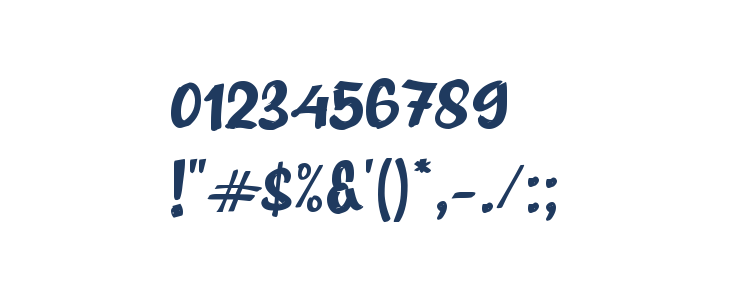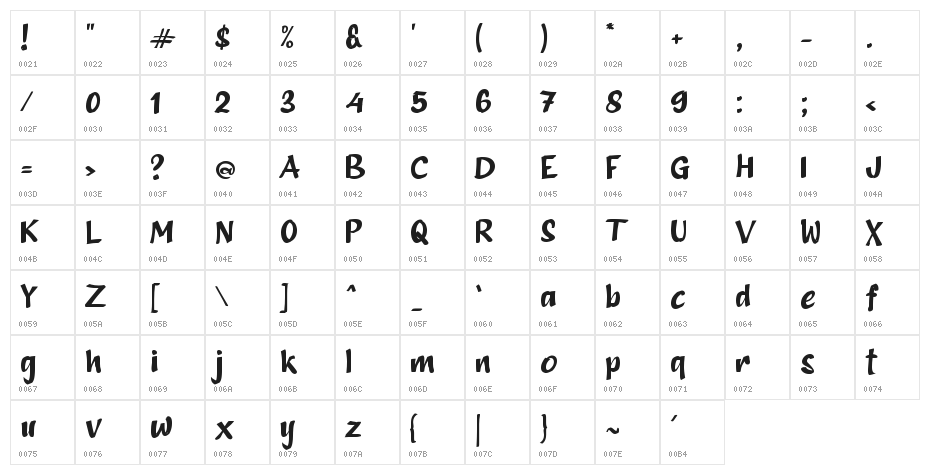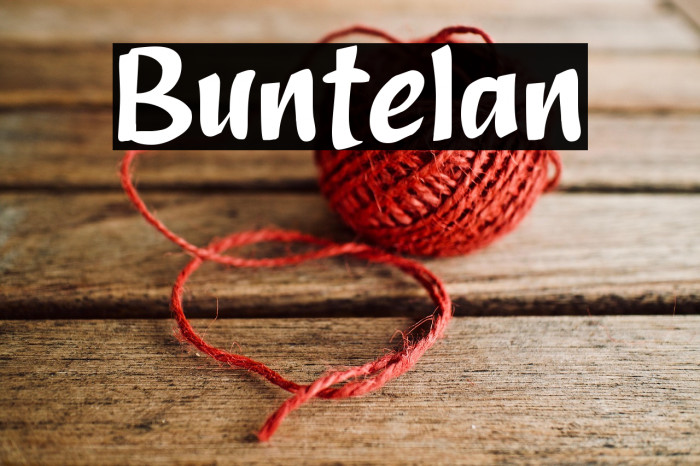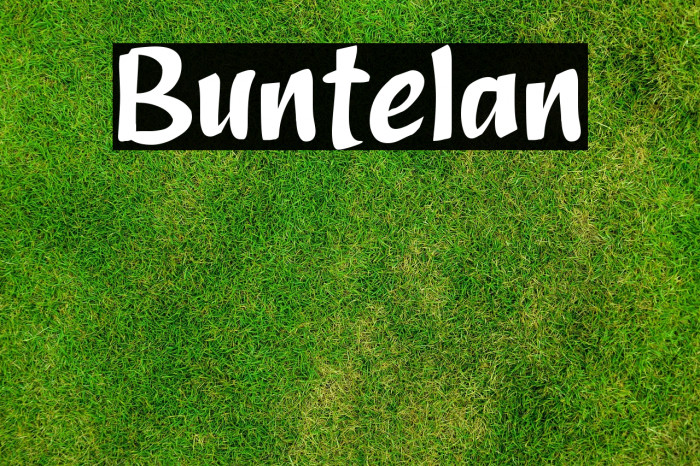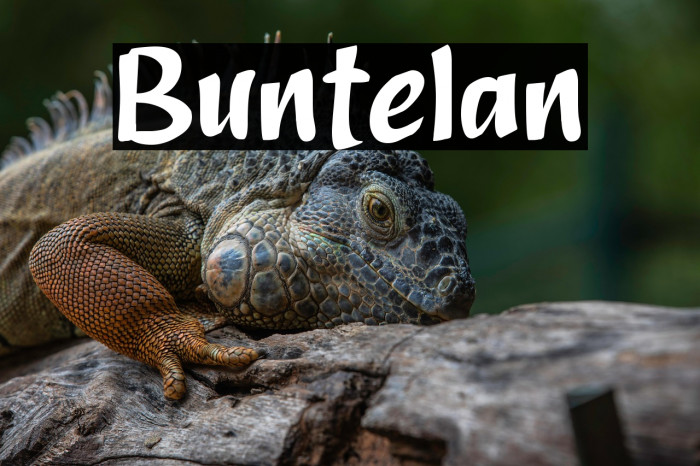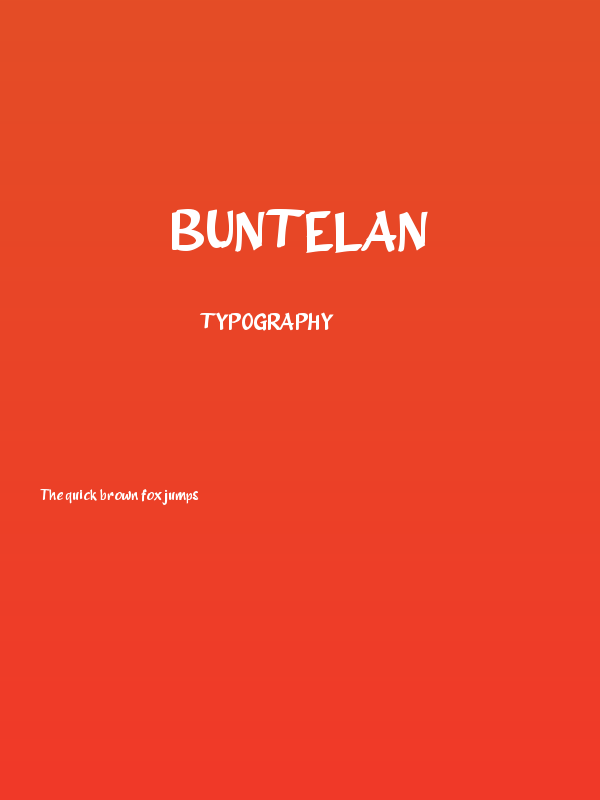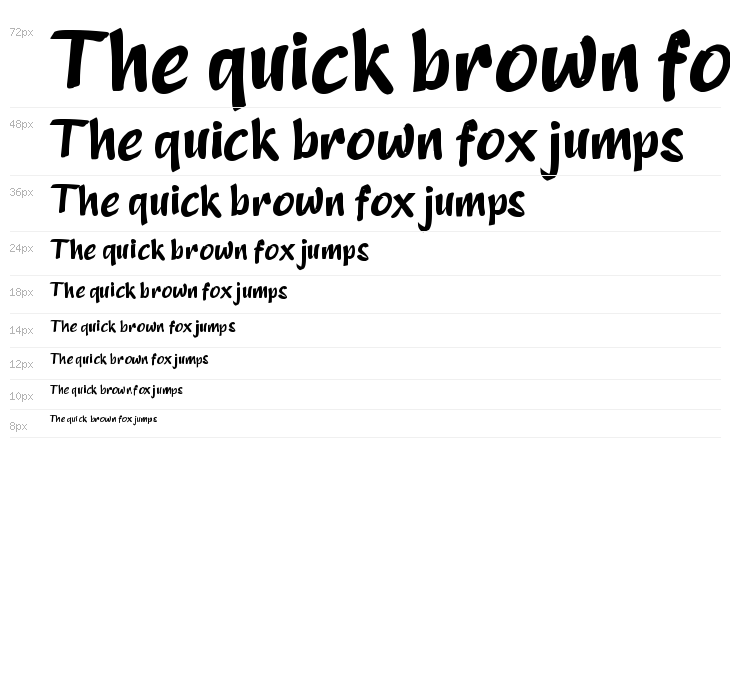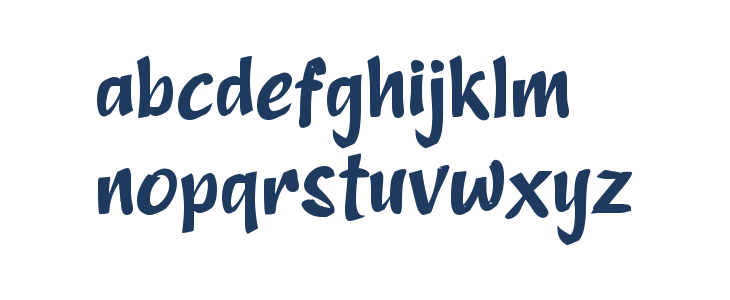
Buntelan Font
Buntelan Description
This font exudes a playful and energetic vibe with its bold and slightly irregular strokes. The characters are crafted with a hand-drawn aesthetic, giving it a casual and approachable feel. The uppercase letters are robust and dynamic, while the lowercase letters maintain a consistent flow with a touch of whimsy. Numbers and special characters are equally expressive, ensuring a cohesive look across all text elements. The font's unique style makes it stand out, perfect for projects that require a personal touch or a fun, informal tone.
| Use Case | Logos, Headlines, Posters |
| Proposed Projects | Ideal for greeting cards, children's books, playful branding, and social media graphics. |